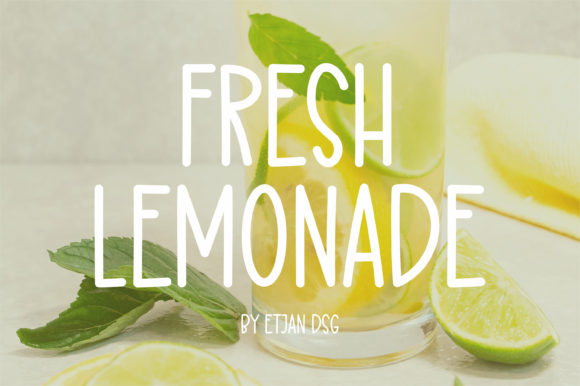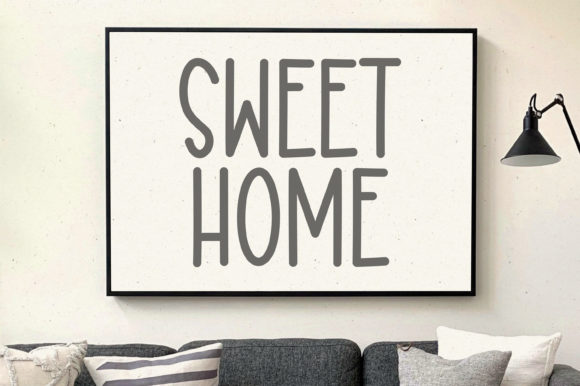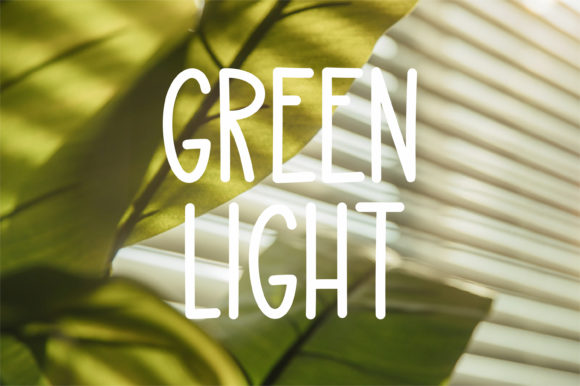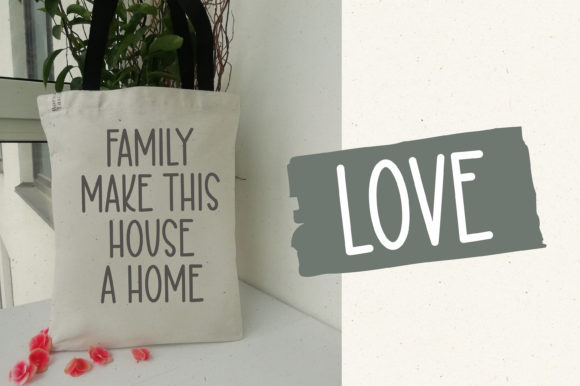
Fresh Lemonade Font: A Cute Handwritten Font for Crafts & DIY
About the Fresh Lemonade Font
The Fresh Lemonade Font offers a perfect balance of form and function for your design needs. Fresh Lemonade is a tall handwritten font. It is suitable for svg designs, mug decorations, pottery, shirts, hats, tote bags, card making, wall art, interior prints, and various other creations. Whatever the topic, this font will be a wonderful asset to your font library, as it has the potential to enhance any creation.
Its tall, handwritten style makes Fresh Lemonade ideal for headlines, short slogans, and branding elements where a friendly, approachable feel is desired. It works exceptionally well on packaging for food and beverage products, children’s items, and craft-related businesses. However, its limited x-height and inconsistent stroke weight make it unsuitable for body text or UI applications requiring high readability.
For optimal visual impact, pair Fresh Lemonade with a clean sans-serif like Open Sans for body copy or a playful, rounded geometric sans-serif such as Nunito for a modern feel. A classic serif like Merriweather can also provide a sophisticated contrast, grounding the hand-drawn informality of Fresh Lemonade.
The font projects a lighthearted, optimistic personality; think summery and refreshing. Avoid pairing it with fonts that are overly formal or serious; the contrast would feel jarring.
Fresh Lemonade Font Usage Examples
Fresh Lemonade Font Example